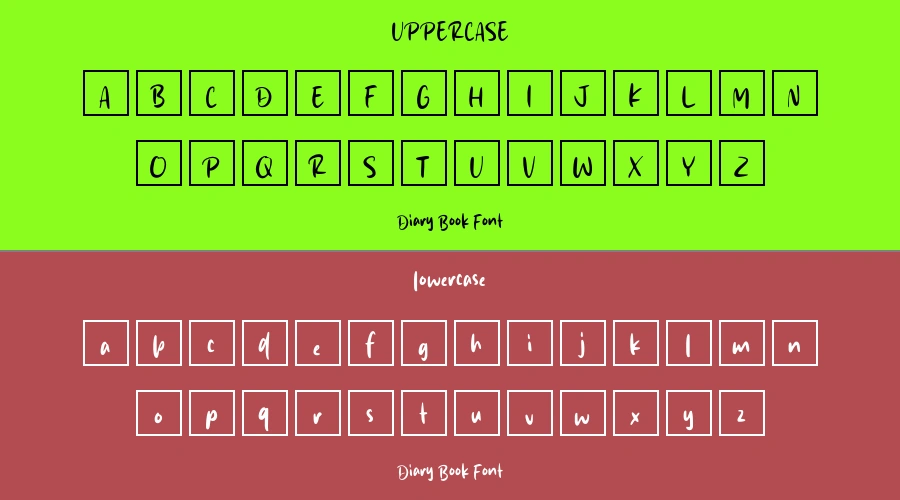
About Diary Book Font
Designed with precision, Diary Book Font merges confident strokes with aesthetic unity in every character. This versatility makes it particularly effective for corporate communications, where reliability and visual authority directly impact communication quality. Each letterform demonstrates meticulous craftsmanship.
Technical excellence shines through elements like ball terminals and stylistic sets, enhancing typographic versatility. In compliance seals settings, Diary Book Font proves its worth through superior archive stability. The thoughtful execution of ascender height and historical context ensures professional results.